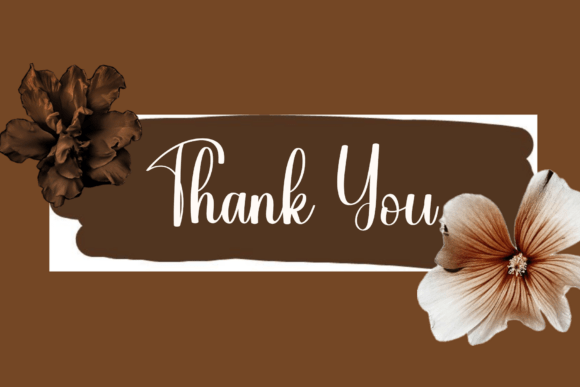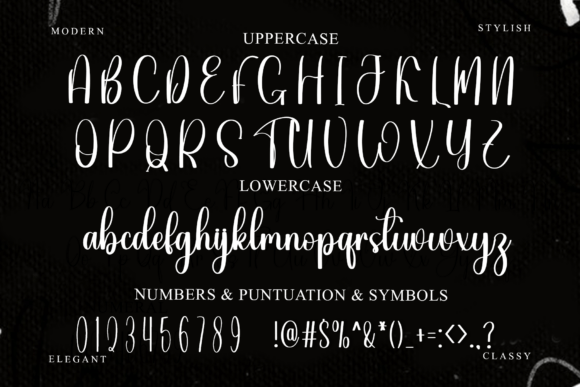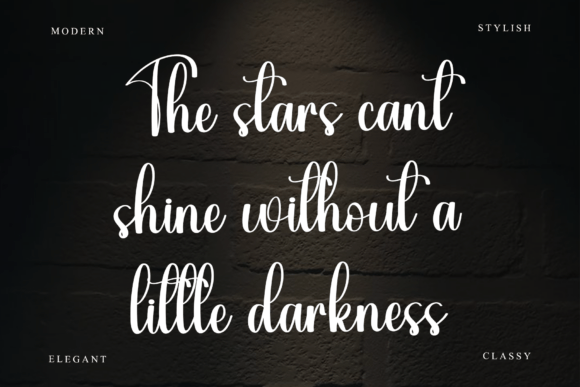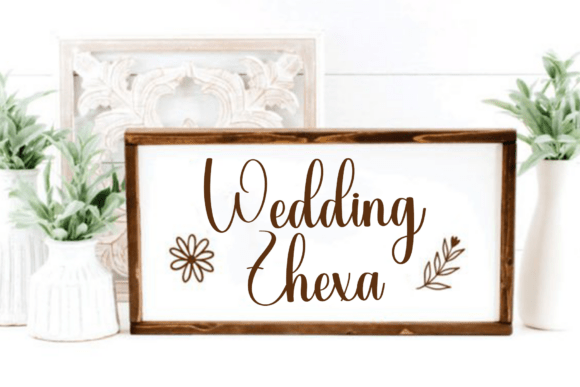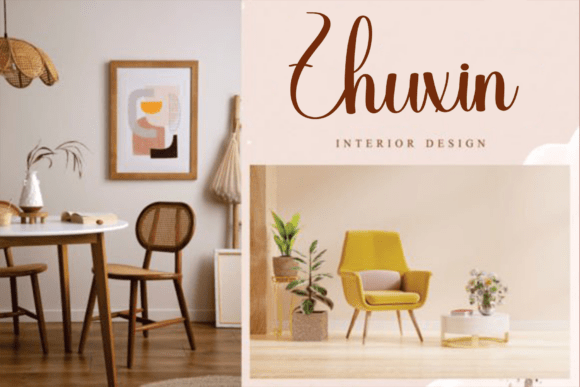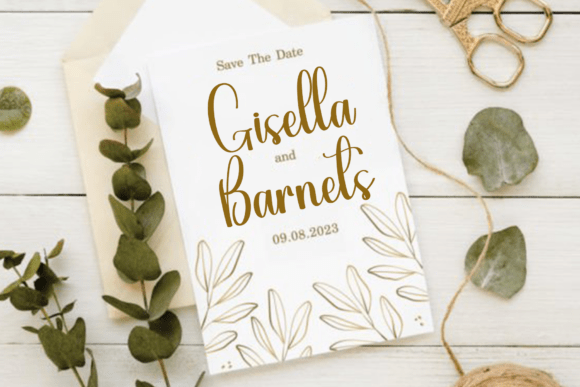
Discover the Enchanting Dandilion Font: A Perfect Blend of Whimsy and Warmth
Are you on the hunt for a font that can add a dash of personality and charm to your designs? Look no further than the Enchanting Dandilion font! This casual and creative typeface is designed to exude warmth and friendliness, making it perfect for a wide range of projects, from personal endeavors to social media graphics and invitations.
The Characteristics of Enchanting Dandilion Font
So, what makes the Enchanting Dandilion font so special? For starters, its round, playful strokes create a relaxed and approachable feel that’s hard to resist. The font’s charming, hand-drawn aesthetic adds a fun and unique touch to any design, making it perfect for crafters and designers who want to infuse their work with a bit of whimsy.
Perfect for Personal Projects and Social Media Graphics
Whether you’re working on a personal project or creating social media graphics for your business, the Enchanting Dandilion font is an excellent choice. Its casual and creative vibe makes it perfect for:
- Personal invitations, such as birthday or wedding invites
- Social media graphics, including Facebook posts, Instagram stories, and Twitter headers
- Blog posts and articles that require a friendly and approachable tone
- DIY craft projects, such as handmade cards or scrapbooking
Why Choose the Enchanting Dandilion Font?
So, why should you choose the Enchanting Dandilion font for your next project? Here are just a few compelling reasons:
- Unique and eye-catching: The Enchanting Dandilion font is sure to grab attention with its playful and charming aesthetic.
- Easy to read: Despite its whimsical nature, the font is surprisingly easy to read, making it perfect for longer texts.
- Versatile: The font can be used for a wide range of projects, from personal to commercial.
- High-quality: The font is designed with high-quality, PUA Encoded glyphs that ensure crisp and clear rendering.
Tips for Using the Enchanting Dandilion Font
To get the most out of the Enchanting Dandilion font, here are a few tips to keep in mind:
- Pair it with complementary fonts: Try pairing the Enchanting Dandilion font with other fonts that complement its playful and whimsical nature.
- Experiment with colors: The font looks great in a range of colors, so don’t be afraid to experiment and find the perfect hue for your project.
- Use it for headings and titles: The Enchanting Dandilion font is perfect for headings and titles, where its playful aesthetic can really shine.
In conclusion, the Enchanting Dandilion font is a fantastic choice for designers and crafters who want to add a dash of personality and charm to their work. With its playful and whimsical aesthetic, this font is sure to grab attention and leave a lasting impression. So why not give it a try and see the magic for yourself?